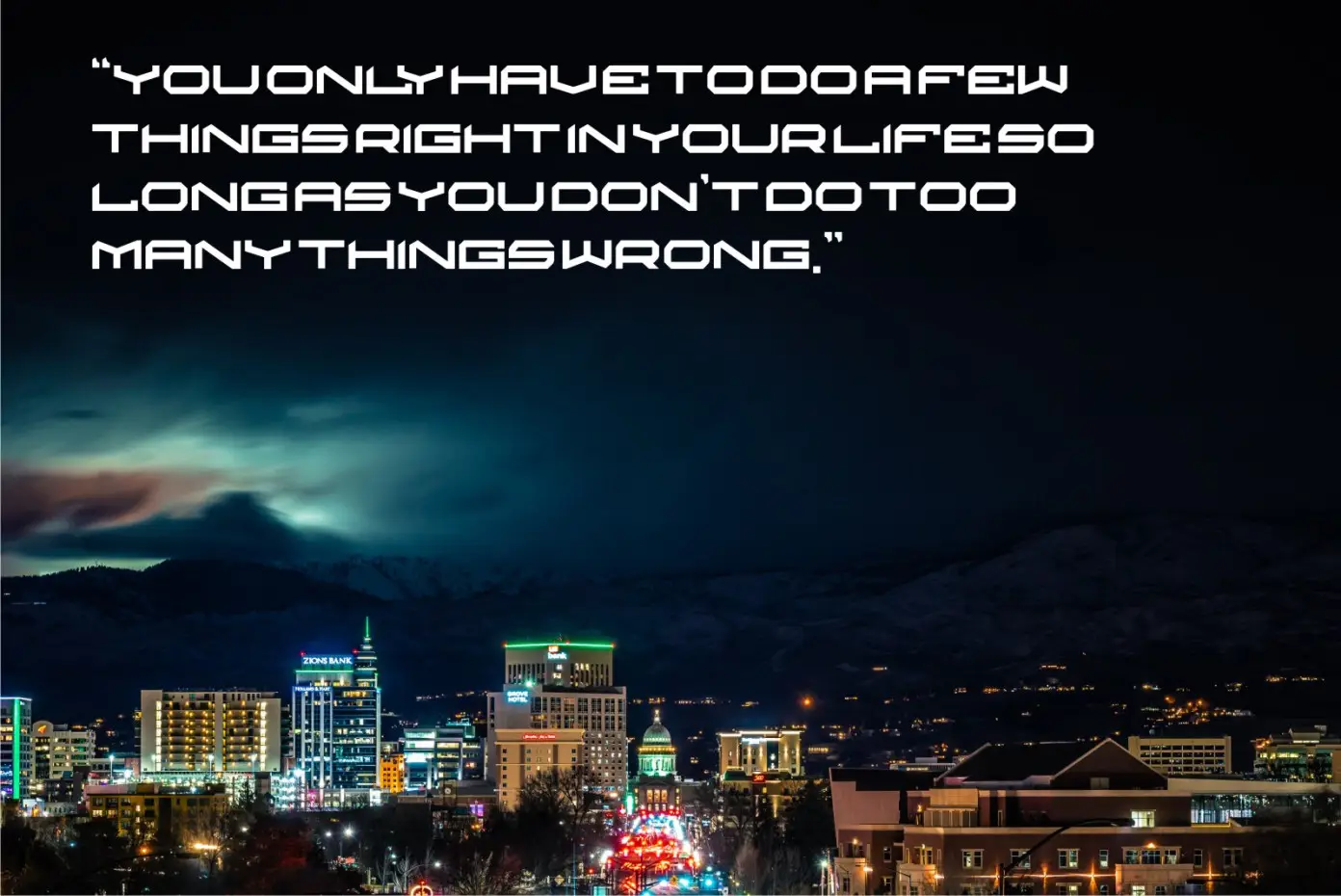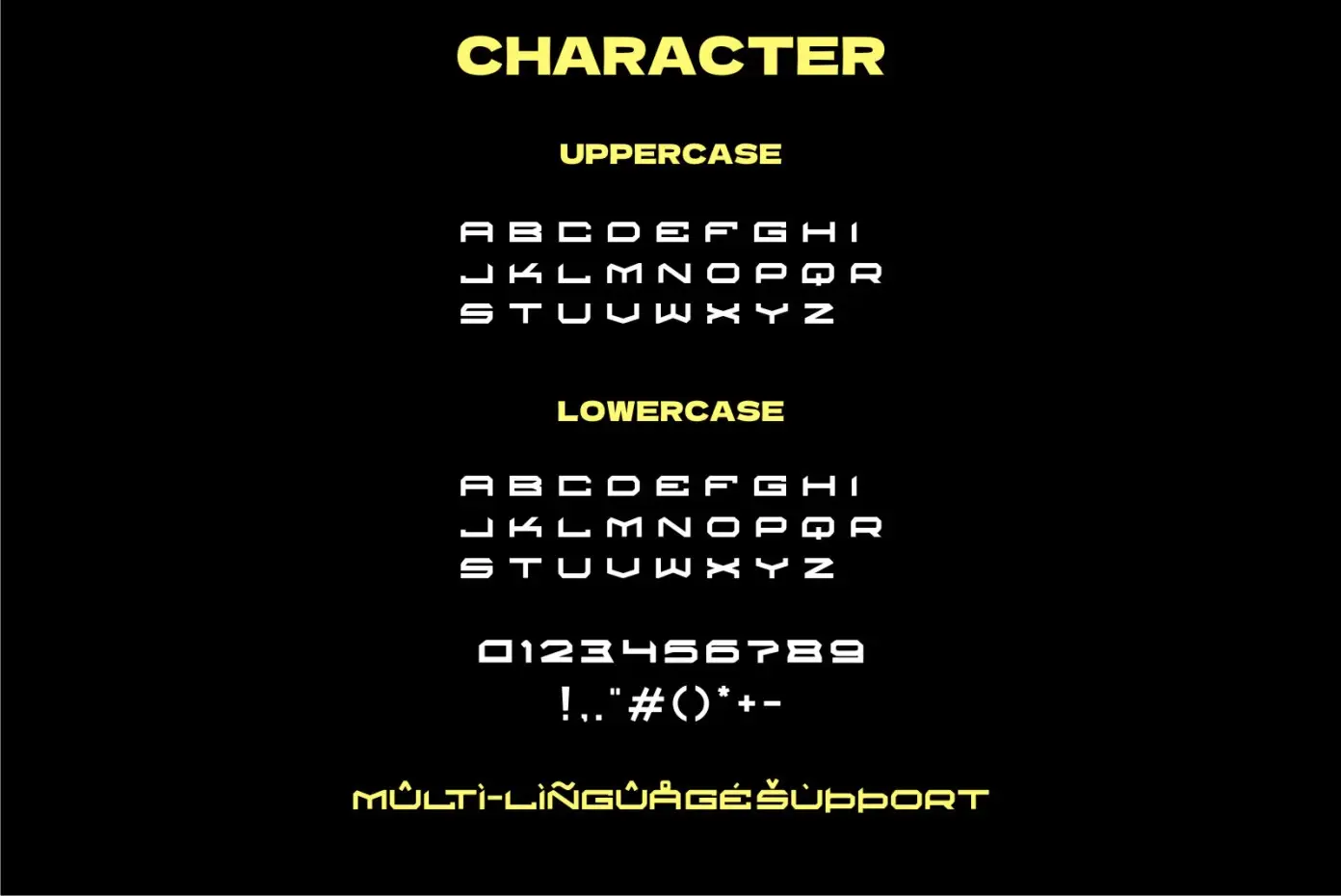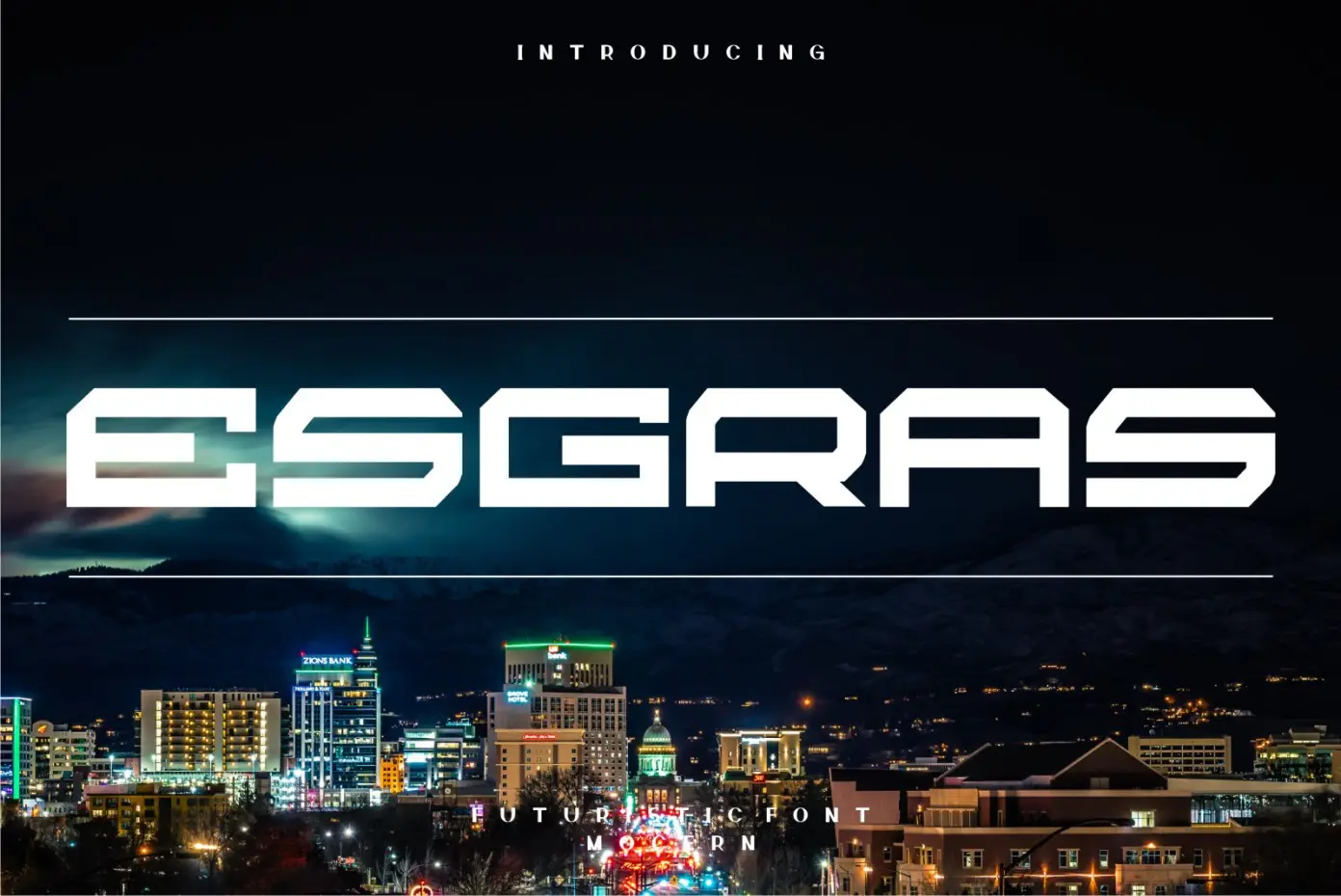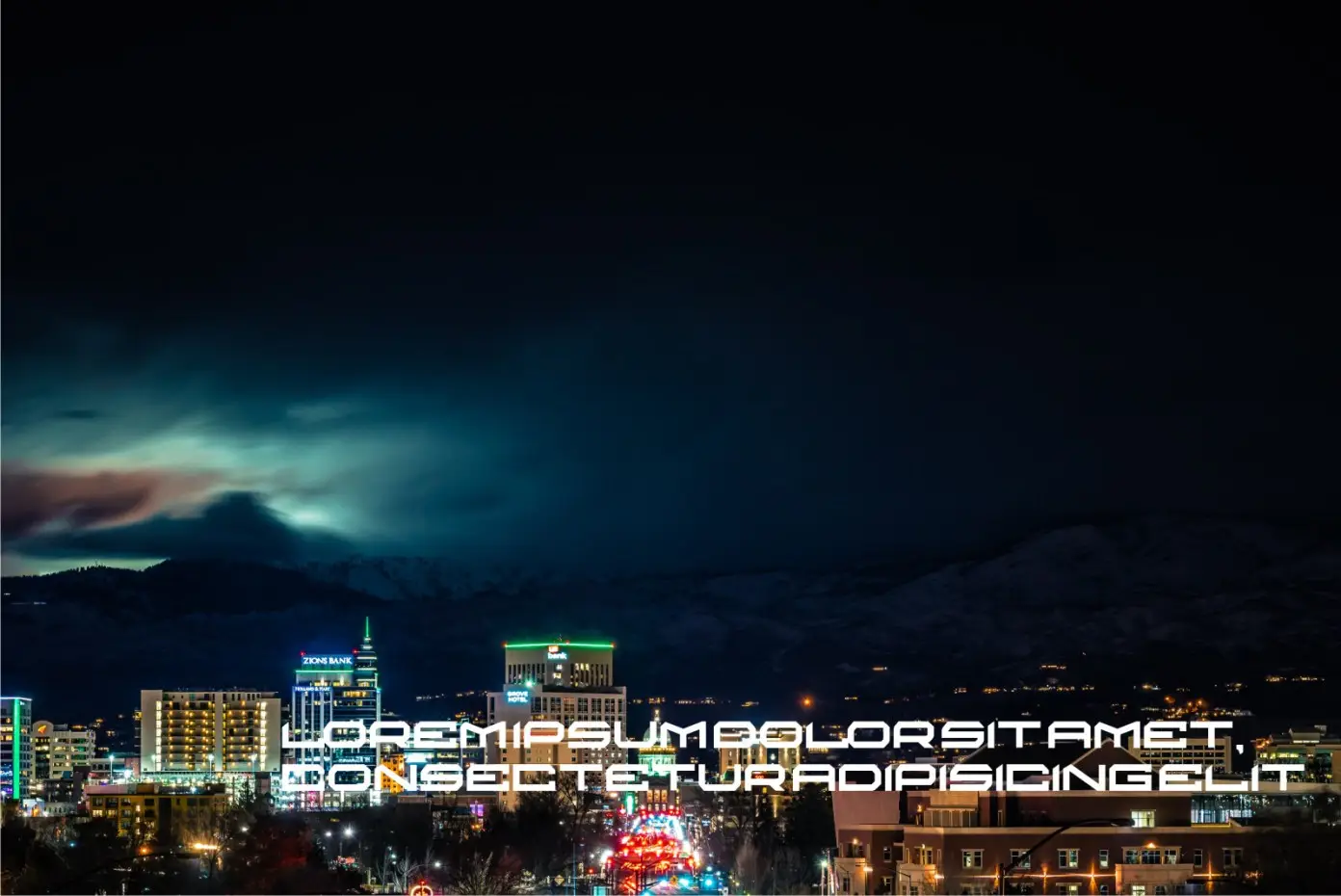
Esgras Font
Introducing the Esgras Font, a versatile typeface that combines elegance with modernity. Perfect for a variety of design projects, this font features clean lines and a contemporary aesthetic that will elevate your branding, logos, web design, and print materials.
• Utilize Esgras Font for creating impactful branding materials.
• Incorporate it into web design for a modern look.
• Use it in print projects like business cards and brochures for a professional touch.